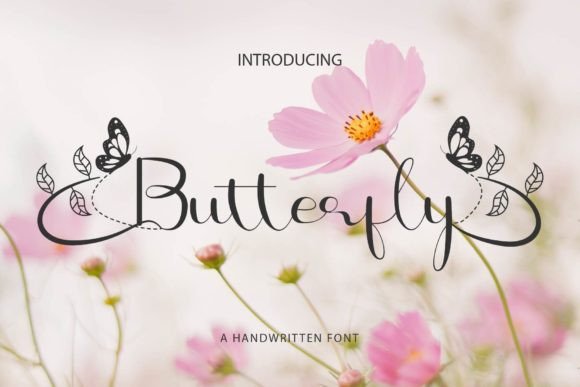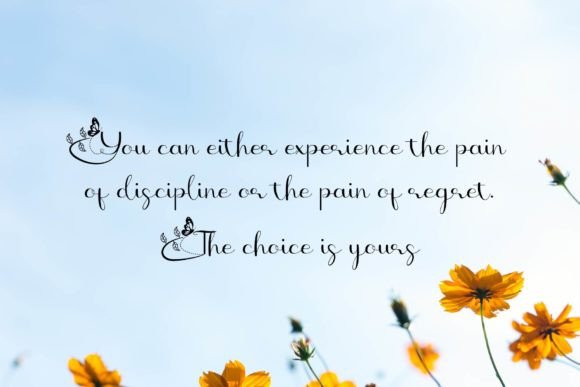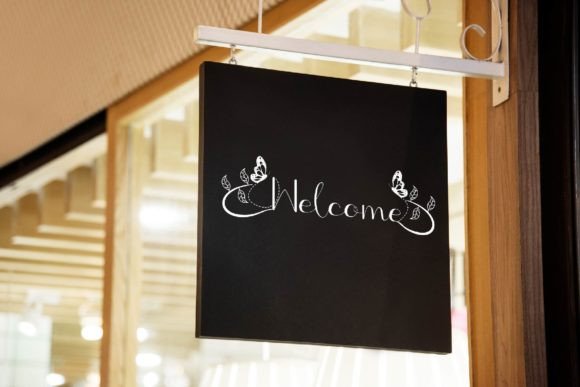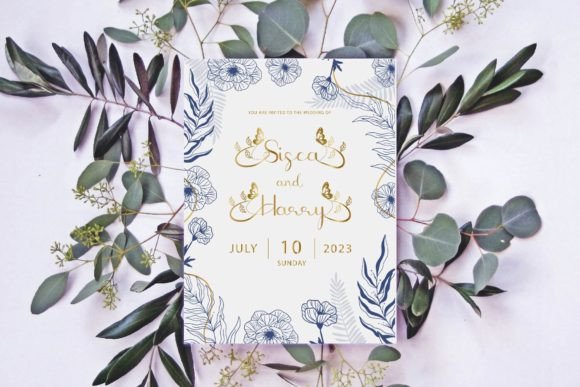
About the Butterfly Font
Step up your design game with Butterfly Font, a font that exudes confidence and style. Butterfly is a stylish and incredibly elegant decorative handwritten font. It looks stunning on wedding invitations, thank you cards, quotes, greeting cards, logos, business cards, and every other design which needs a handwritten touch.
Butterfly Font Usage Examples
Butterfly Font Example